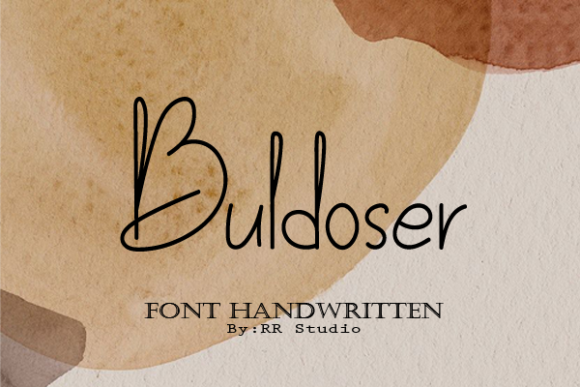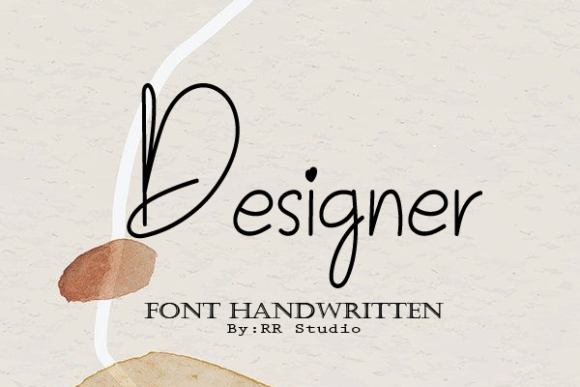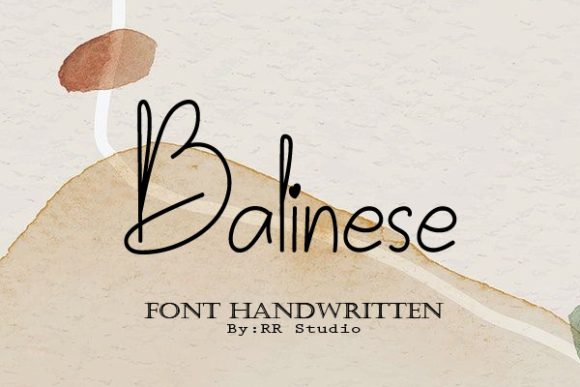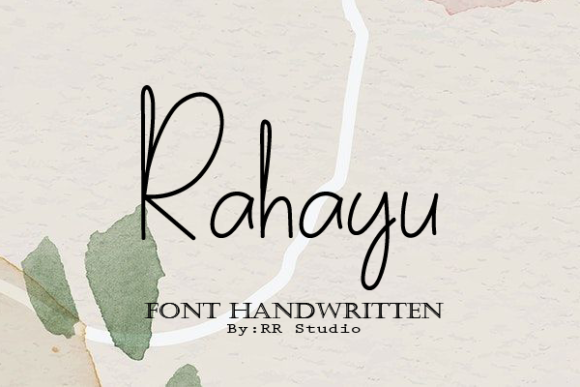
The Signatra Font
About The Signatra Font
The Signatra is a truly exquisite and stylish handwritten font that embodies timeless elegance and sophistication. Its meticulously crafted letterforms exude a sense of grace and beauty that makes it a perfect choice for a wide range of design projects.
Whether you’re working on wedding invitations, thank you cards, quotes, greeting cards, logos, or business cards, The Signatra will add a touch of refined charm and personalization. The fluidity of its strokes and the balance of its characters make it an exceptional choice for projects that require a handwritten touch.
The Signatra’s versatility shines through in its ability to adapt to various design contexts. Its elegant curves and distinct lines create a harmonious visual appeal that captures attention and draws the viewer in. Whether used as the focal point of a design or as a complementary element, The Signatra elevates the overall aesthetics of any composition.
Its sophisticated appearance is complemented by its practicality. The font’s handwritten nature gives it a warm and approachable feel, making it suitable for conveying heartfelt messages and sentiments. The Signatra’s ability to connect with the audience on an emotional level is a testament to its design excellence.
One of the standout features of The Signatra is its ability to evoke a sense of authenticity and personalization. Its handwritten style reflects the beauty of imperfection, adding a human touch to digital and print designs alike. This font brings a sense of intimacy and uniqueness to each project, setting it apart from generic typefaces.
Whether you’re aiming for a classic and traditional look or a more modern and contemporary vibe, The Signatra adapts effortlessly to your creative vision. Its elegant presence enhances the overall aesthetics of any design, making it a valuable asset in your typographic toolbox.
Furthermore, The Signatra’s inherent beauty is accentuated by its smooth and effortless connectivity between letters, allowing for seamless combinations and smooth flowing text. This feature is particularly advantageous for creating visually pleasing and legible text arrangements.
In conclusion, The Signatra is a font that encapsulates elegance, style, and versatility. Its timeless handwritten appeal, combined with its ability to convey emotions and authenticity, make it a powerful tool for designers who seek to create stunning and impactful visuals. Incorporating The Signatra into your projects will undoubtedly result in captivating and memorable designs that leave a lasting impression.